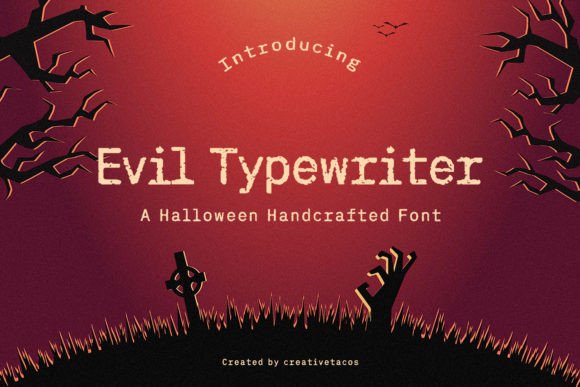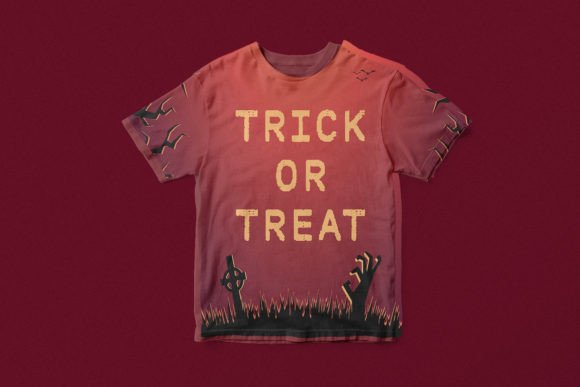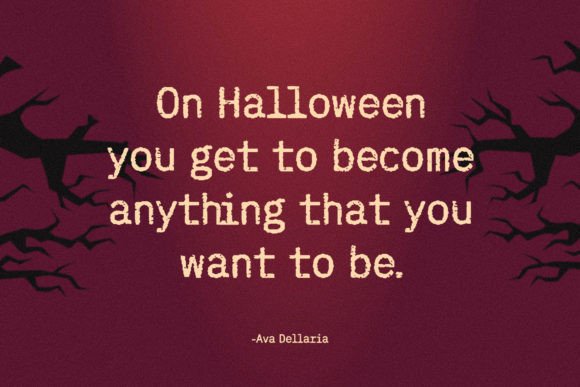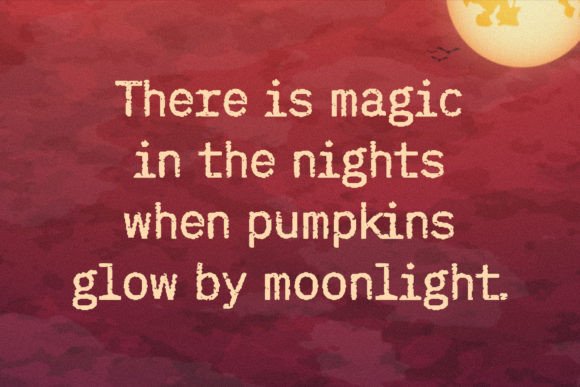
Evil Typewriter Font Download – Scary Horror Grunge Script
The Evil Typewriter Font download is a terrifying and bold typeface created for horror-inspired projects. With its rough grunge strokes and eerie style, this font captures the essence of fear and suspense. Whether you’re working on Halloween posters, spooky logos, or chilling social media graphics, Evil Typewriter brings a haunting atmosphere that elevates your designs.
A Terrifying Horror Grunge Style
The Evil Typewriter Font download features distorted strokes and a roughened typewriter texture that instantly sets a dark mood. Its unsettling look makes it ideal for projects that need to convey mystery, suspense, or fear. This style is especially powerful for horror-themed media.
Perfect for Halloween and Horror Projects
The Evil Typewriter Font download is a go-to choice for Halloween designs. Use it for party invitations, haunted house posters, trick-or-treat bags, or spooky banners. Its scary and unique texture adds instant drama and authenticity to your seasonal creations.
Great for Logos, Posters, and Quotes
Beyond Halloween, the Evil Typewriter Font download adapts to a wide range of projects. It’s perfect for creating bold logos, eerie book covers, frightening movie posters, or chilling quote graphics. Its horror grunge appeal makes any design unforgettable.
Readability with Spooky Character
While horror fonts can sometimes be too chaotic, the Evil Typewriter Font download maintains readability. Its rugged strokes are clear enough for headlines and medium-sized text while still delivering the unsettling energy of a spooky grunge typeface.
Why Choose Evil Typewriter Font?
Among countless horror fonts, the Evil TypewriterFont download stands out for its unique grunge texture and authentic scary style. It strikes the perfect balance between fear and readability, making it versatile enough for creative professionals and hobbyists alike.
Add Fear and Suspense to Your Designs
Typography shapes the atmosphere of a project, and the Evil TypewriterFont download helps you create chilling, suspenseful, and unforgettable designs. Whether for Halloween, horror branding, or eerie creative projects, this font ensures your message leaves a lasting impression.